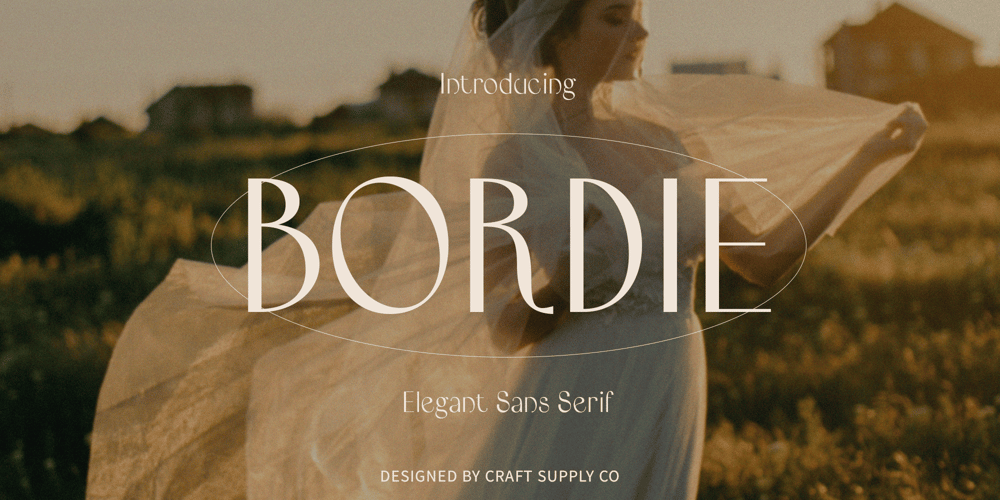
Bordie
Bordie font
Bordie Font Family was designed by Trio Nazzar Saputra, Wahyu Hadi Yuana and published by Craft Supply Co. Bordie contains 2 styles and family package options. Bordie Font: A Symphony of Elegance in Sans SerifCaptivating BeautyBordie, a sans serif font crafted with inspiration from high-end fashion magazine designs, effortlessly encapsulates the essence of beauty and sophistication. Every stroke and curve is meticulously designed to convey a sense of grace and charm.Elegance in Every CurveEach letter of Bordie is a meticulous dance of curves and lines, presenting a harmonious and elegant visual feast for the eyes. The subtle intricacies and fine details make it a standout choice for those who appreciate the artistry in typography.Fashioned for BeautyTailored for those who seek beauty in simplicity, Bordie transcends the conventional, becoming a visual masterpiece that elevates any design it graces. The font’s versatility allows it to seamlessly integrate into various design projects, from minimalist branding to luxurious editorial layouts.Angelic AllureBordie’s angelic allure makes it a perfect choice for a myriad of design projects, from glamorous editorial layouts to chic branding endeavors. The font’s timeless appeal adds a touch of sophistication, making it equally suitable for modern and classic design themes.ConclusionIn a world of fonts, Bordie stands as a testament to the belief that beauty lies in simplicity. Embrace the elegance, let the curves speak, and let Bordie redefine beauty in every design endeavor. Whether you’re creating a fashion-forward layout or a refined brand identity, Bordie is your key to unlocking a world of visual sophistication.